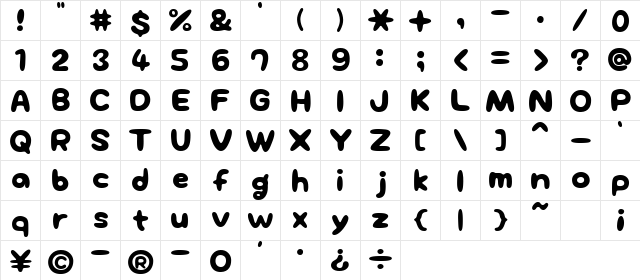
NeponAL Regular
Design Context for NeponAL Typeface
NeponAL takes a measured approach to typography — its balanced proportions and neutral character make it a reliable workhorse for both digital and print work.